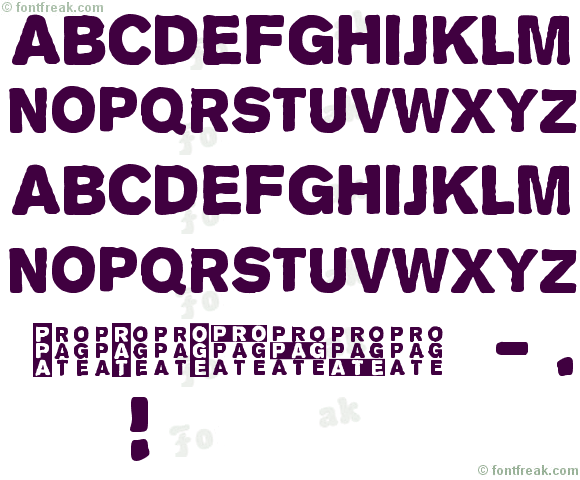
Propaganda
About Propaganda
The Propaganda font by Apostrophic Labs is a distinctive display typeface that embodies a bold and impactful aesthetic. Released in 2002, this freeware font captures attention with its heavy strokes and playful design, making it a versatile choice for various creative projects. The font features a uniform stroke weight with minimal contrast, creating a solid, block-like appearance that adds a sense of strength and clarity. The character spacing is generous, allowing for legibility even at larger sizes, and the overall style has a slightly rounded, approachable feel, which enhances its visual appeal.
Best suited for high-impact designs, the Propaganda font excels in use cases such as movie posters, where its boldness can evoke emotion and draw viewers in. It is also ideal for branding materials, including logos and advertisements, where a strong, memorable impression is essential. Additionally, the font works well for product packaging, giving a modern twist to the presentation. Small business owners and graphic designers will find it particularly useful for creating eye-catching social media graphics and promotional materials.
The target audience for the Propaganda font includes graphic designers, small business owners, and content creators looking for a unique typeface that can elevate their projects. Its versatility makes it an excellent choice for anyone seeking to infuse their work with personality and flair.
What sets the Propaganda font apart is its ability to blend fun with functionality, making it not only visually striking but also highly usable across various applications. With the added benefit of being a Propaganda font free download, it's an accessible option for those looking to make a bold statement in their designs without compromising on quality.